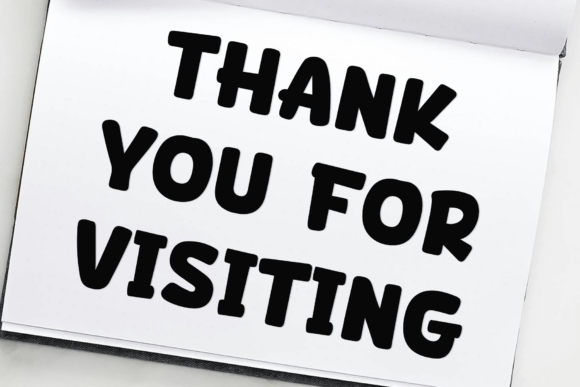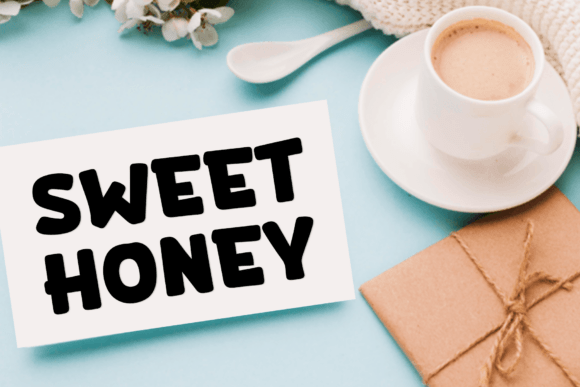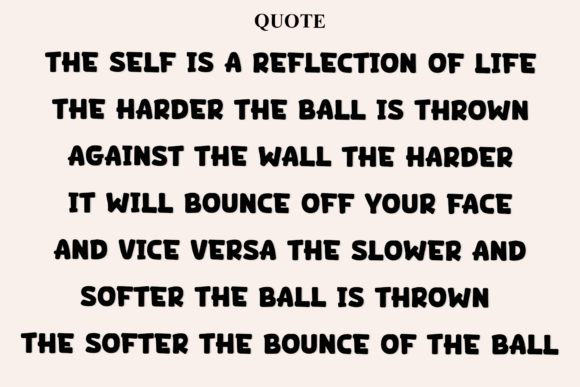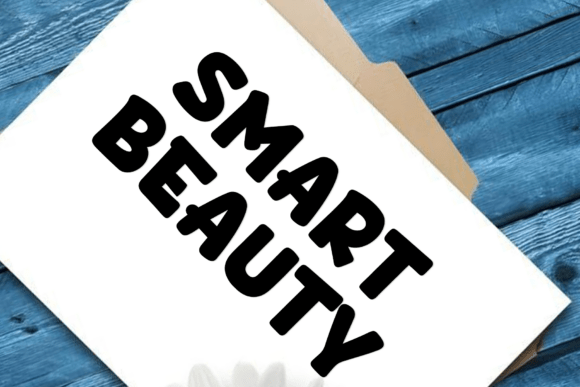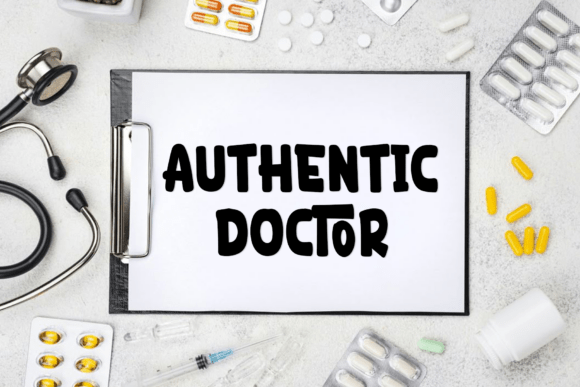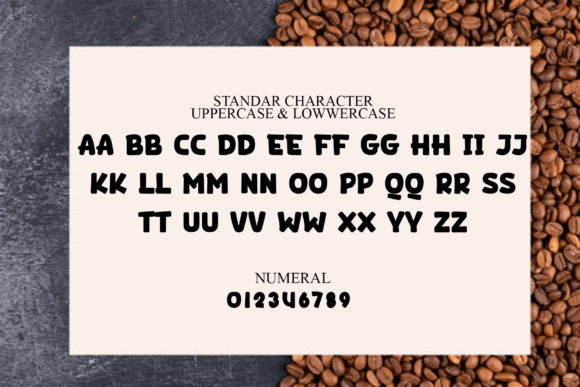
Introducing Cookie Chlato Font: The Perfect Blend of Casual and Creative
Are you tired of using the same old fonts for your personal projects, invitations, and social media graphics? Look no further than Cookie Chlato Font, a charming and creative typeface that exudes warmth and friendliness. With its round, playful strokes, this font is sure to add a relaxed and approachable feel to any design.
The Characteristics of Cookie Chlato Font
Cookie Chlato Font is a hand-drawn font that boasts a unique and fun aesthetic. Its casual and creative vibe makes it perfect for designers and crafters who want to add a personal touch to their work. The font’s charming, hand-drawn strokes create a sense of warmth and friendliness, making it ideal for projects that require a more approachable and relaxed feel.
Perfect for Personal Projects and Designs
Whether you’re working on a personal project, creating invitations, or designing social media graphics, Cookie Chlato Font is the perfect choice. Its playful and creative vibe makes it suitable for a wide range of applications, from DIY crafts to digital designs. With Cookie Chlato Font, you can add a fun and unique touch to any project, making it stand out from the crowd.
Advantages of Using Cookie Chlato Font
So, why should you choose Cookie Chlato Font for your next project? Here are just a few advantages of using this charming font:
- Unique and Fun Aesthetic: Cookie Chlato Font adds a fun and unique touch to any design, making it perfect for projects that require a creative and playful vibe.
- Warmth and Friendliness: The font’s round, playful strokes create a sense of warmth and friendliness, making it ideal for projects that require a more approachable feel.
Tips for Using Cookie Chlato Font
Here are a few tips for using Cookie Chlato Font in your next project:
- Use it for Headings and Titles: Cookie Chlato Font is perfect for headings and titles, where you want to make a bold and playful statement.
- Pair it with Other Fonts: Cookie Chlato Font can be paired with other fonts to create a unique and interesting contrast.
- Experiment with Colors: The font’s playful vibe makes it perfect for experimenting with bright and bold colors.
In conclusion, Cookie Chlato Font is a charming and creative typeface that exudes warmth and friendliness. With its round, playful strokes and hand-drawn aesthetic, this font is perfect for personal projects, invitations, and social media graphics. Its compatibility with various application engines and PUA Encoded glyphs make it easy to use in a range of software. So, why not give Cookie Chlato Font a try and add a fun and unique touch to your next project?